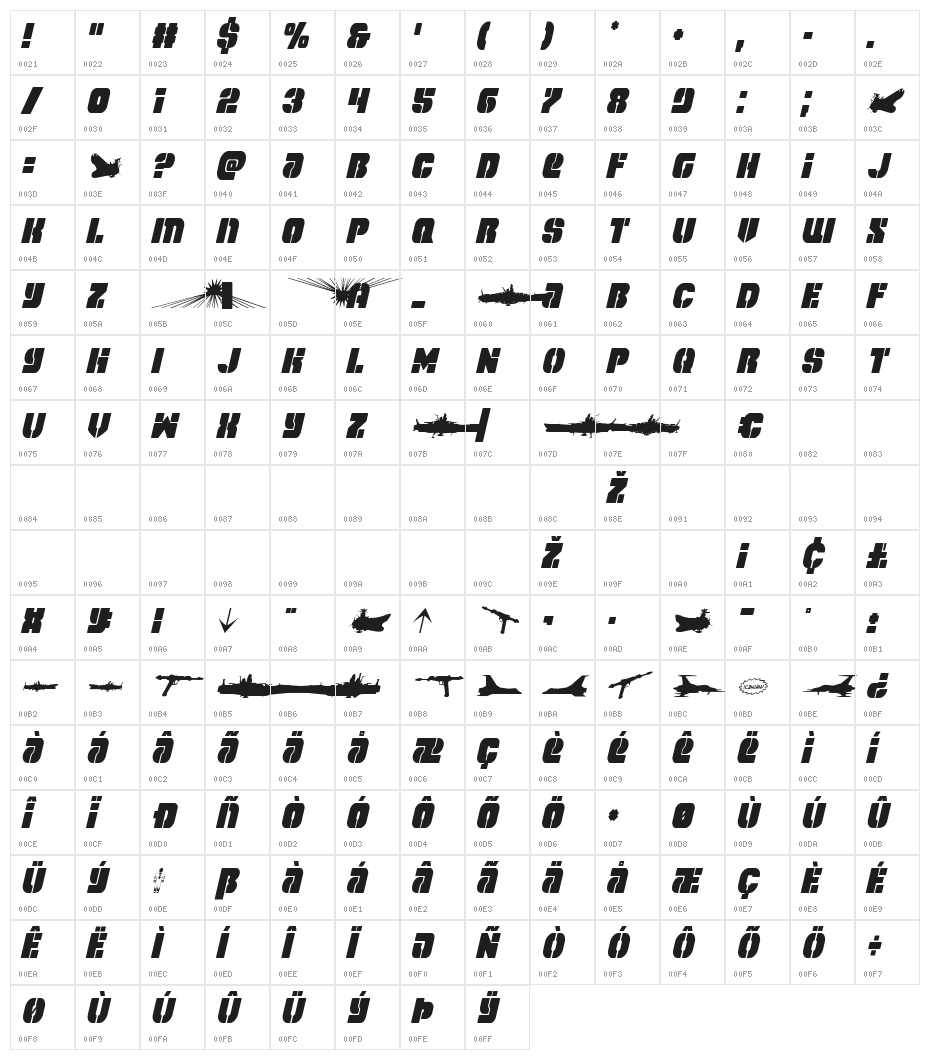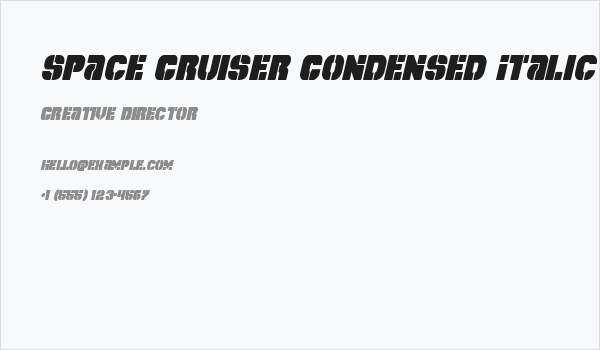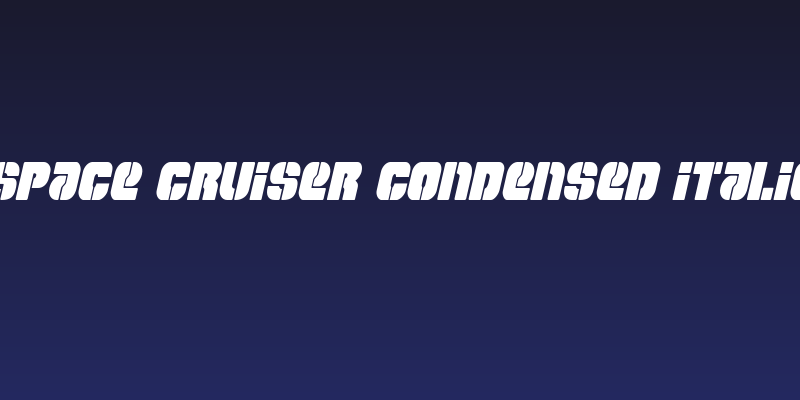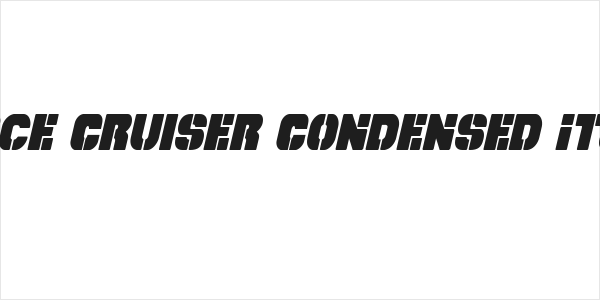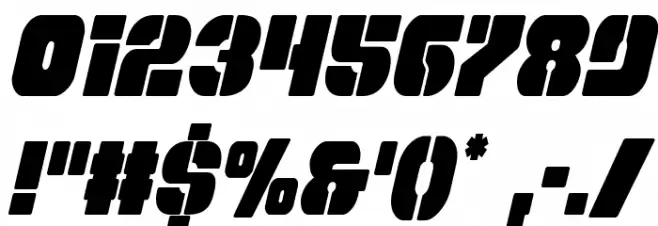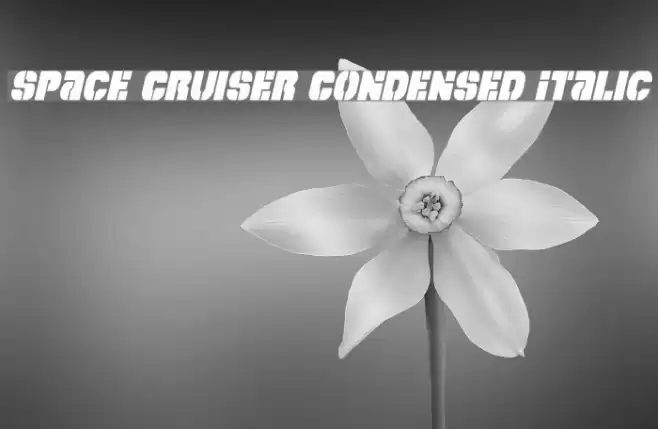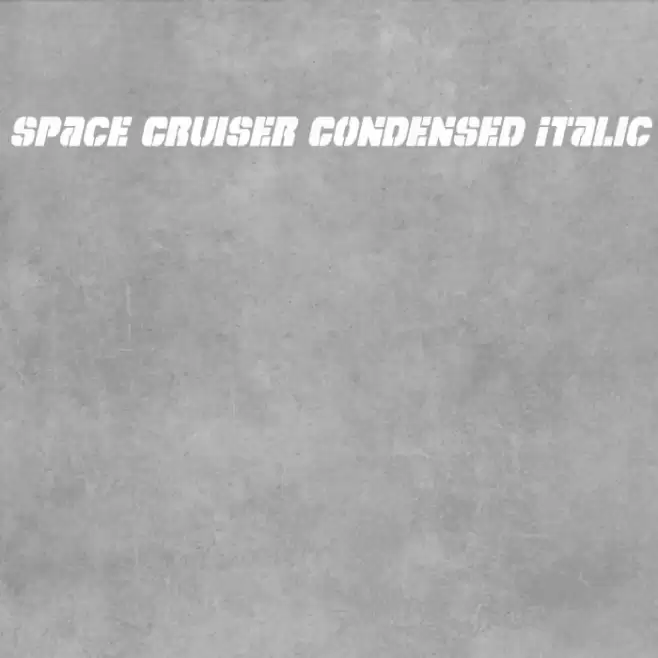
Space Cruiser Condensed Italic Font
This font features a bold and futuristic design with a condensed and italicized style. The characters are heavily stylized with sharp angles and a dynamic slant, giving it a sense of motion and energy. The uppercase and lowercase letters maintain a consistent geometric form, while the numbers and special characters complement the overall aesthetic. The font's unique appearance makes it suitable for projects that require a modern and edgy look.
| Proposed Projects | Ideal for sci-fi themed designs, video game titles, movie posters, and branding for tech companies. |